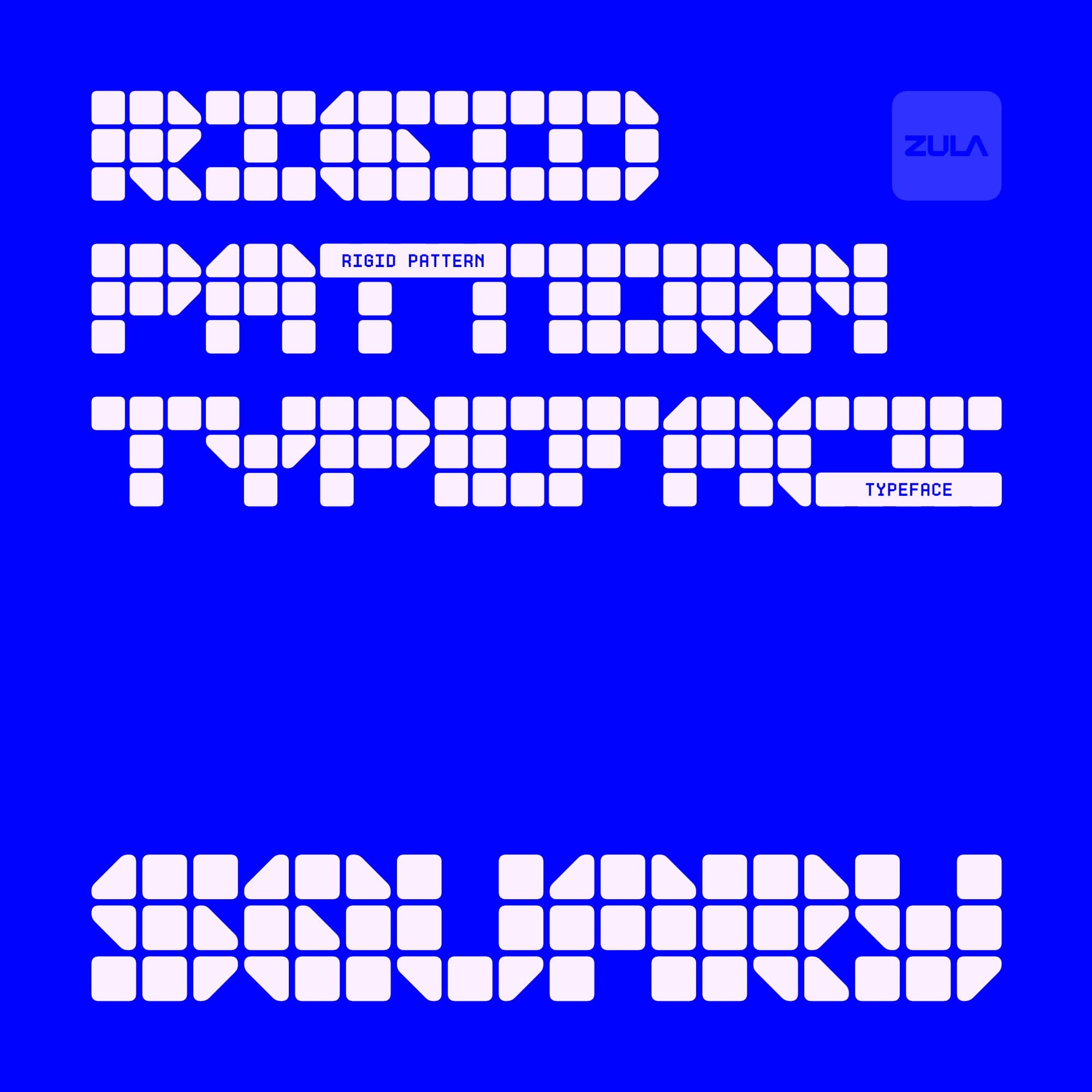
<p><strong>SQUARY Typeface</strong> is a typeface that is formed from a combination of rigid square patterns with rounded corners that are engineered into a unique and geometric shape.</p> <p>SQUARY Include :</p> <ul> <li>OTF/ TTF</li> <li>WOFF (Extended Only)</li> <li>26 LETTERS (ALL CAPS)</li> <li>15 Letters Alternates</li> <li>10 Numeral</li> <li>5 Numeral Alternates</li> <li>Punctuation, Symbol,</li> <li>and Mark</li> </ul>